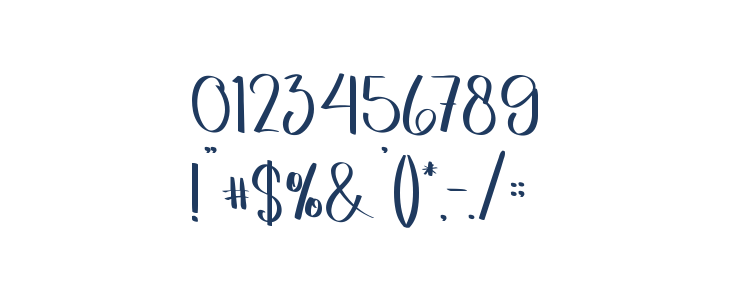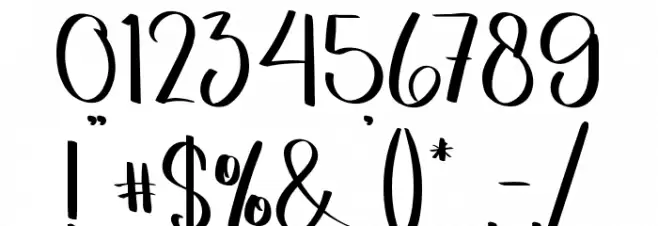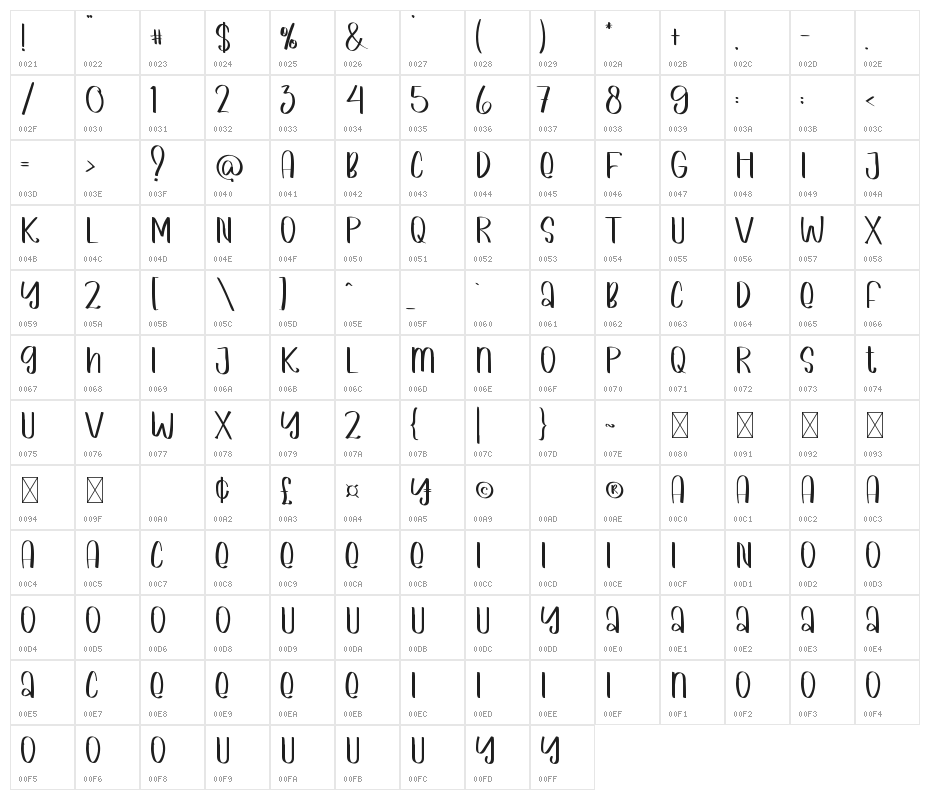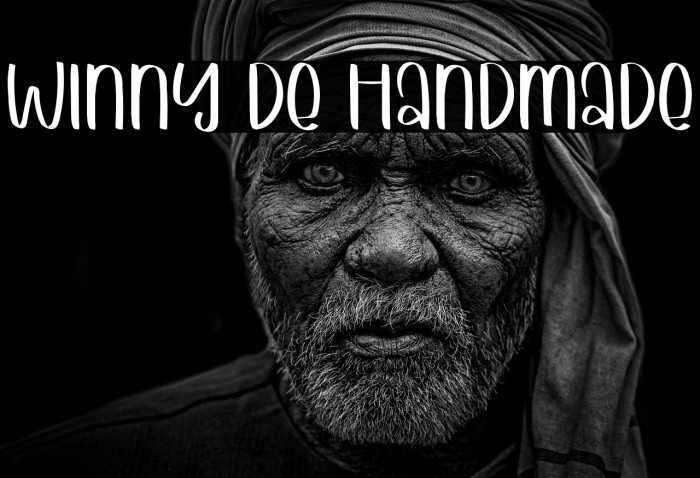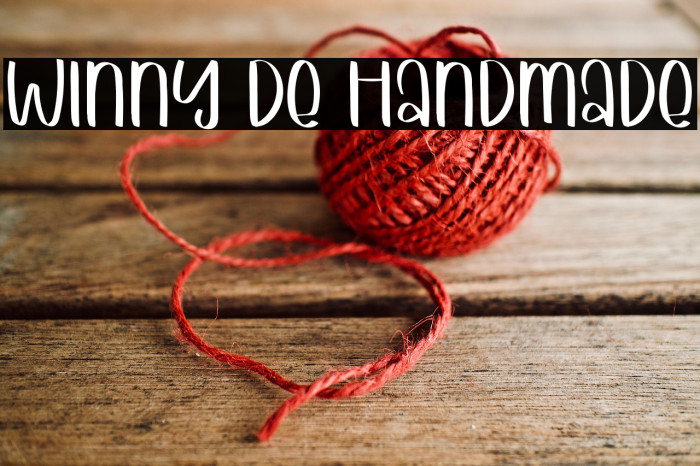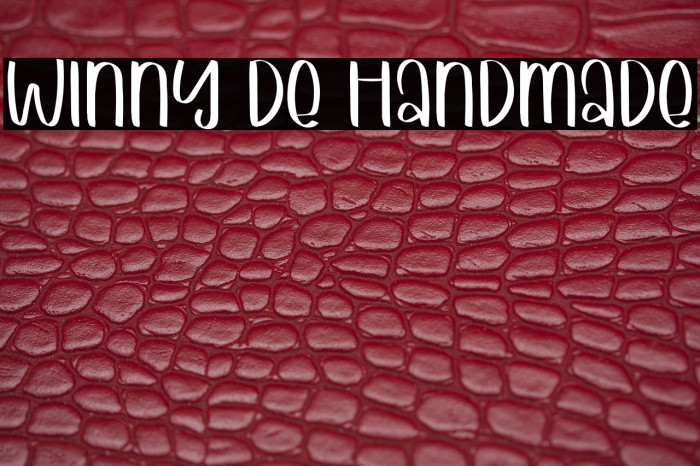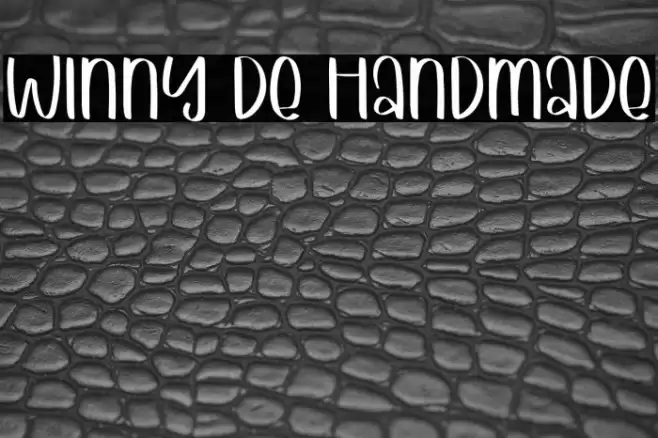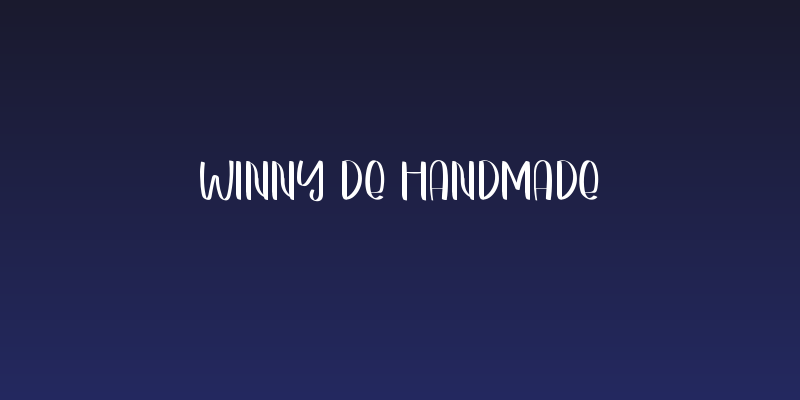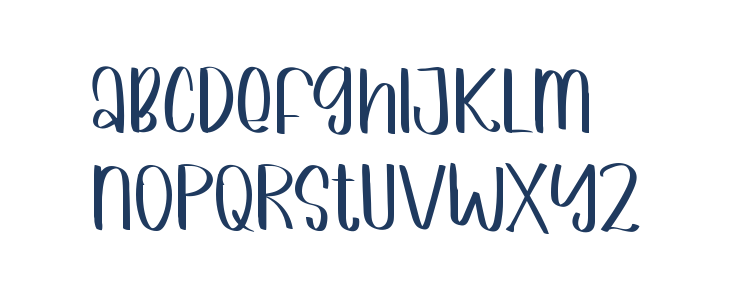
Winny De Handmade Font
Winny De Handmade Description
This font exudes a playful and handcrafted aesthetic, characterized by its smooth, flowing lines and slightly irregular shapes that mimic the natural variations of handwriting. The letters are bold and rounded, with a consistent stroke width that gives it a cohesive look. The uppercase and lowercase letters maintain a harmonious balance, while the numerals and special characters integrate seamlessly into the overall design. This font's whimsical style makes it ideal for projects that require a personal touch, such as invitations, greeting cards, or branding for creative businesses.